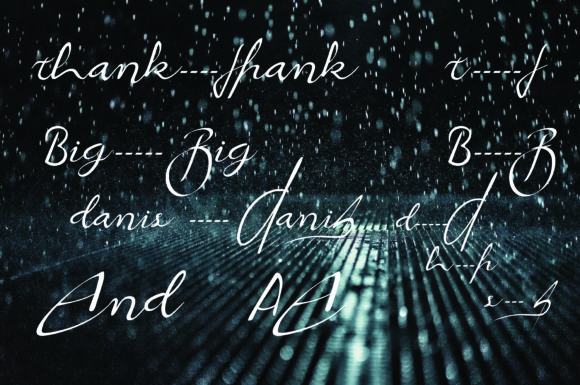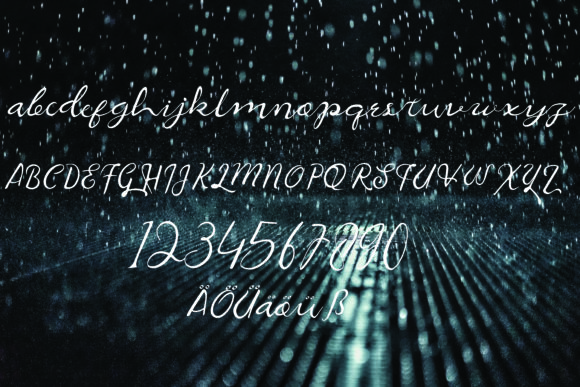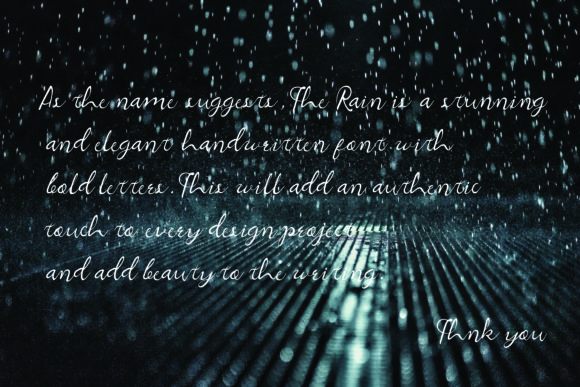
HomeScript FontsThe Rain Font Script Fonts The Rain Font FacebookXPinterestWhatsApp The Rain Font Poster 2 The Rain Font Poster 3 The Rain Font Poster 4 About The Rain Font The Rain is a serious and charming script font that will add a touch of elegance to any design idea! DOWNLOAD NOW People also explored Bianca Font Laila Script Font Santaclous Font Over the Border Font Debora Font Milwaukee Neon Badriyah Font Downstream Font Font-On-A-Grain 314 0 TagsThe Rain Font Previous articleRose FontNext articleJulia-Victoria Font LEAVE A REPLY Cancel reply Comment: Please enter your comment! Name:* Please enter your name here Email:* You have entered an incorrect email address! Please enter your email address here Website: Save my name, email, and website in this browser for the next time I comment. Personal Use Free New Amsterdam Personal Use Free Read more about this font Winner Personal Use Free Read more about this font Blue Highway Personal Use Free Read more about this font Hearted Personal Use Free Read more about this font BLOG Exploring Font Trends Shaping Communication in the Digital Era Fonts, like all design elements, are subject to trends. They play a crucial role in communicating a brand's personality,... Modern Sans-Serif Fonts That Brands Love in 2025 Transform Your Website: Elevate Your Typography with 7 Best Web Font Generators Where to Buy American Fonts Online in 2024